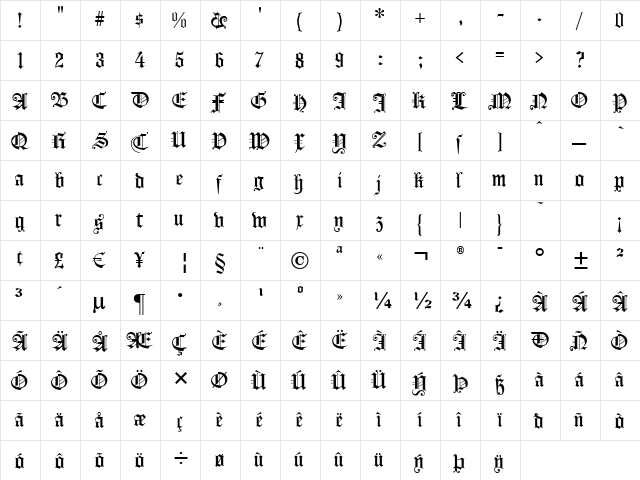
Koenigsberger Gotisch Regular Font Preview
Koenigsberger Gotisch Regular
Koenigsberger Gotisch Regular Font Details
Design Context for Koenigsberger Gotisch Typeface
Koenigsberger Gotisch is a composed and adaptable typeface that performs quietly and consistently across a wide range of design contexts.